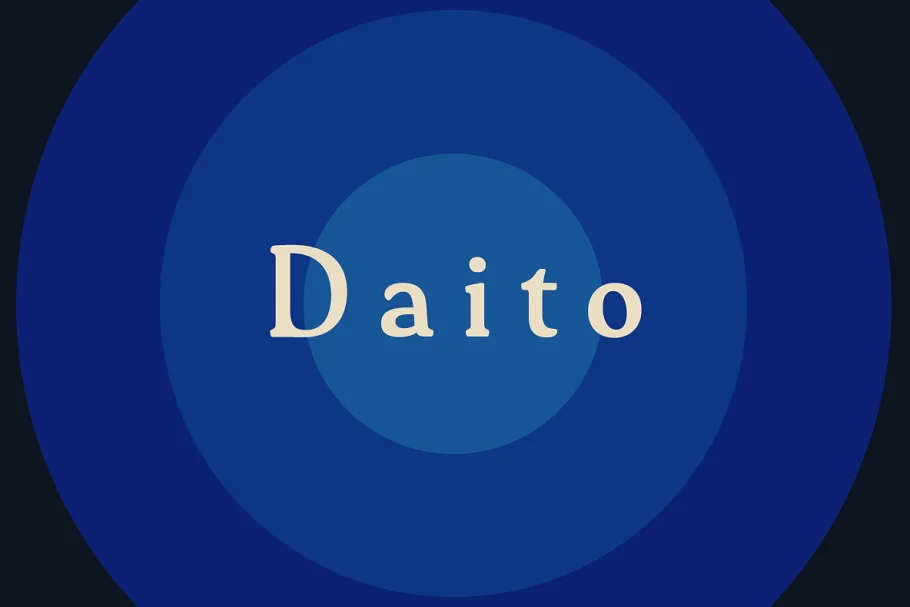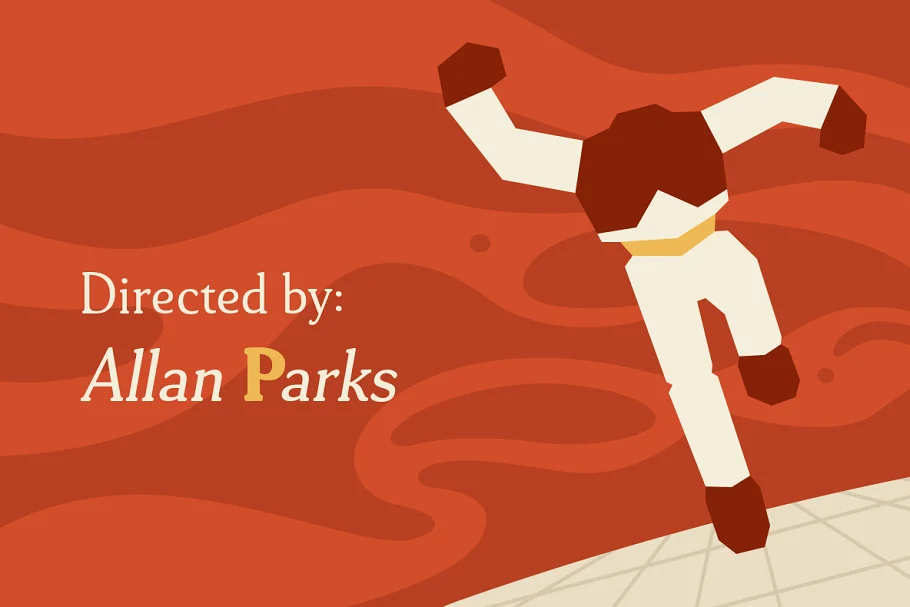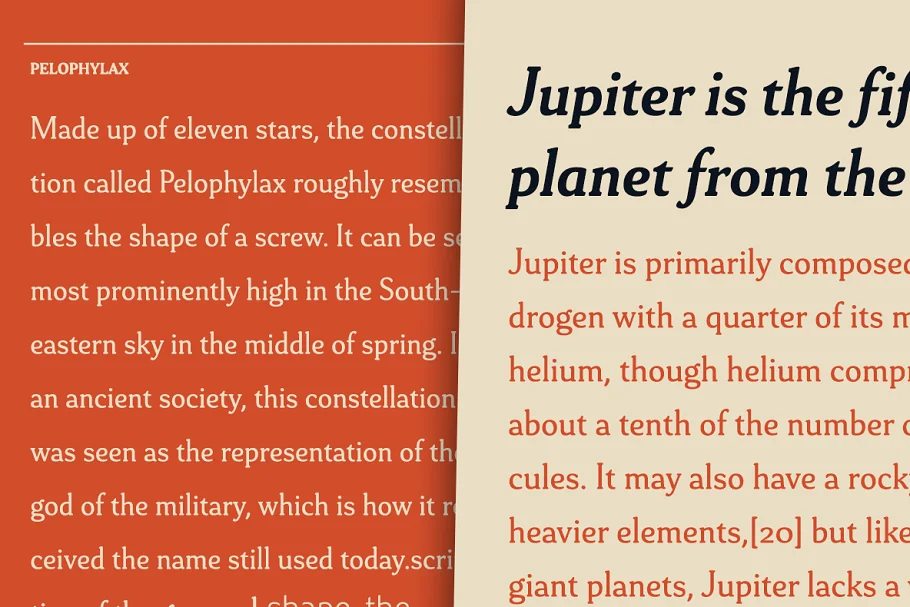
About the Daito Font
It’s alive! Insigne’s new creation, Daito Font, is now functional, built to process your logos, business cards, magazine layouts, packaging, and more without the slightest glitch.
But this new slab serif is no heartless churn of the same factory nuts and bolts. Daito Font is designed to greet your reader with a friendly face.
Inspired by types from the era of the Space Race, this new take on some old faces brings a contemporized, unique set of serif forms to the foot race. Daito comes complete with a variety of weights to help you find the best settings for your current needs or moods. Need soft and playful?
Daito light communicates its message gently with a softened serif. Need a different feel with more authority? With the touch of a few buttons, engage the powerful Black or striking Bold.
Additional features with Daito include stylistic alternates, ligatures, titling capitals, and small caps among other typographic features.